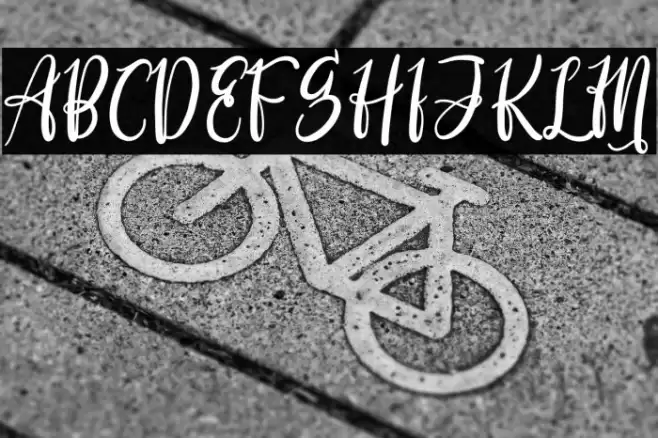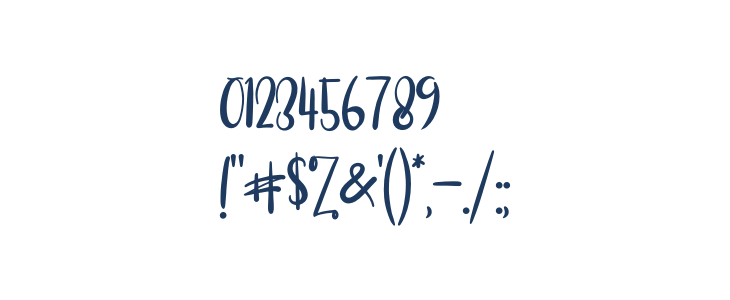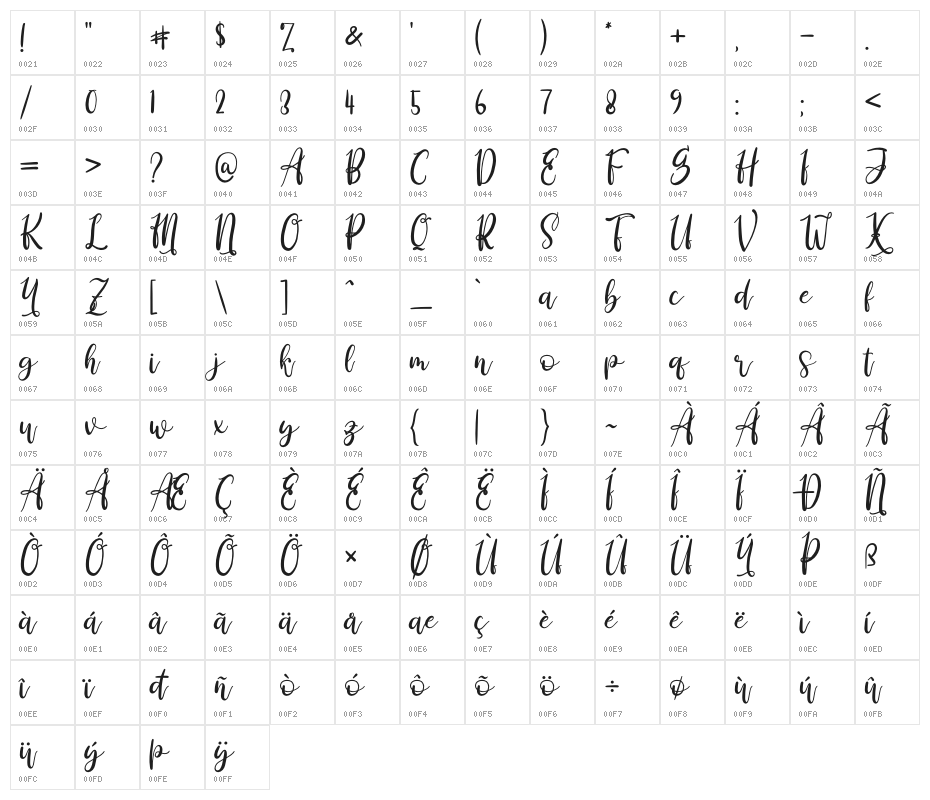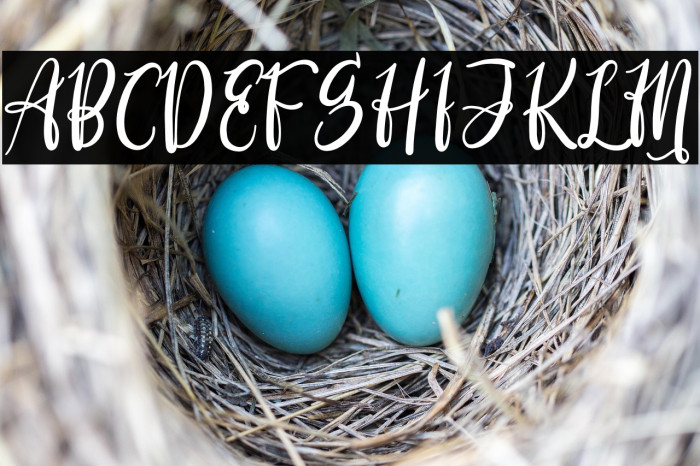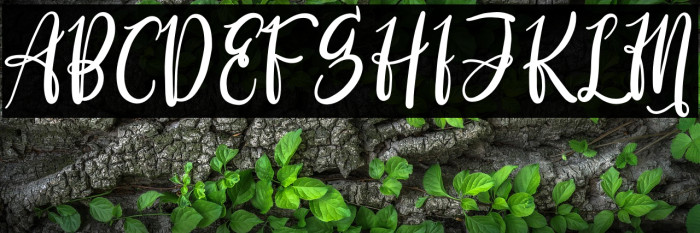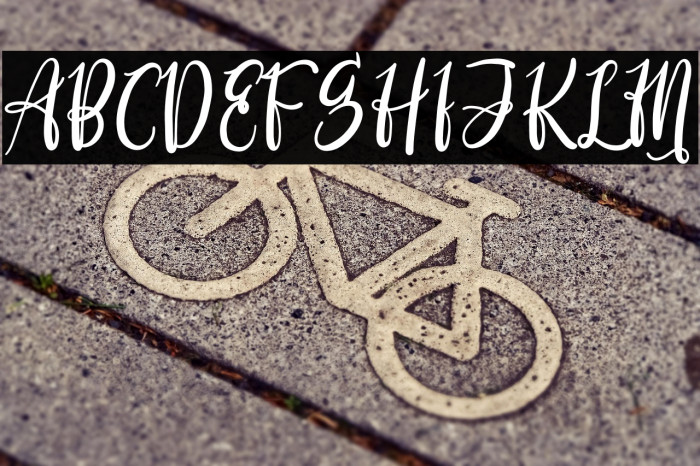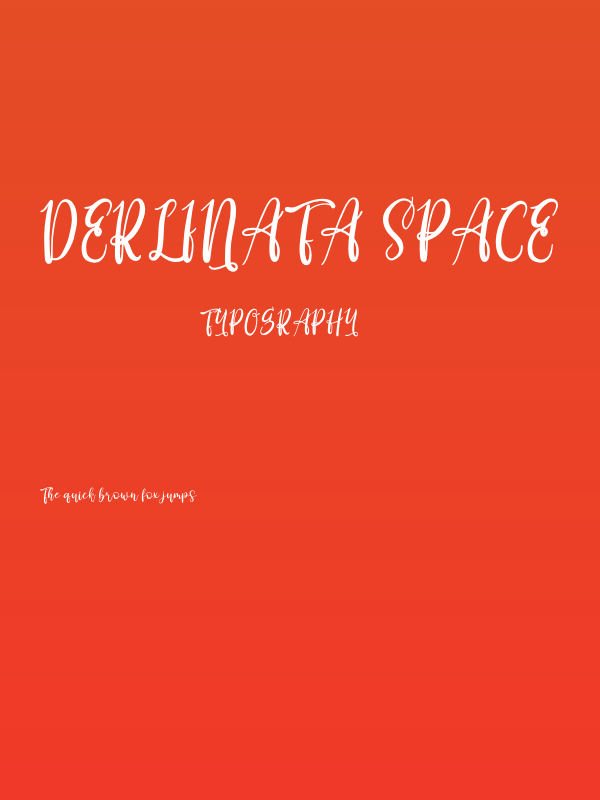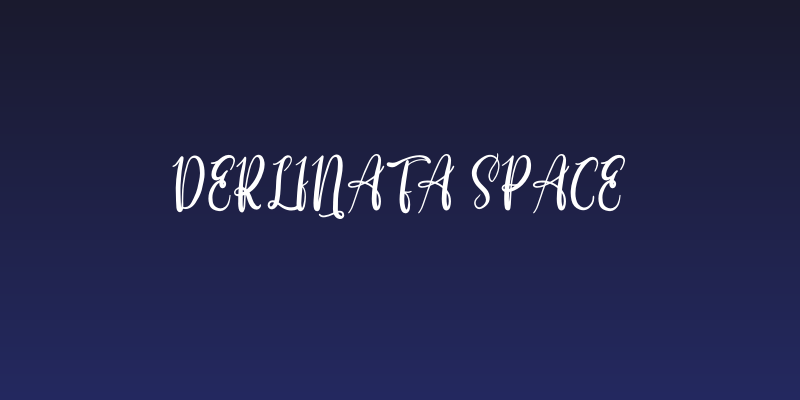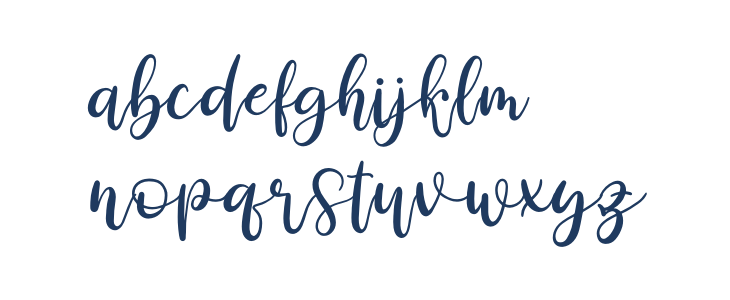
Derlinata Space Font
Derlinata Space Description
This font exhibits a lively and expressive script style, characterized by its flowing and interconnected letterforms. The uppercase letters are bold and dynamic, with elegant loops and swashes that add a sense of movement and flair. The lowercase letters maintain a consistent rhythm, with smooth curves and a slightly informal touch. The numerals are well-integrated, matching the overall aesthetic with their rounded and playful shapes. Special characters are thoughtfully designed, complementing the script's whimsical nature. This font's overall appearance is both artistic and approachable, making it suitable for creative and personal projects.
A lively and expressive script font with flowing, interconnected letterforms from Uncategorized fonts.
- Font: Derlinata Space
- Proposed Projects: Ideal for wedding invitations, greeting cards, branding, and creative projects that require a personal touch.
- Use Case: Logos, Invitations, Greeting Cards